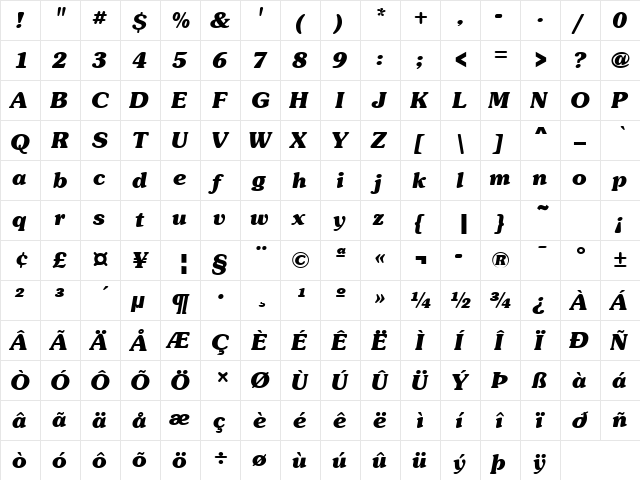
SunsetLH Bold Italic
Design Context for SunsetLH Typeface
SunsetLH takes a measured approach to typography — its balanced proportions and neutral character make it a reliable workhorse for both digital and print work. The slanted form adds forward momentum and visual energy. Its bold stroke weight gives it real presence on the page.
Pro Tip: Use SunsetLH for emphasis, pull quotes, and subheadings where its slanted energy can add rhythm to the layout.